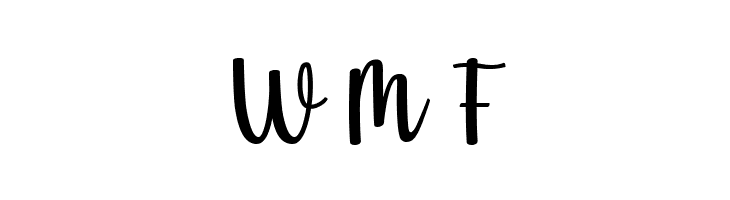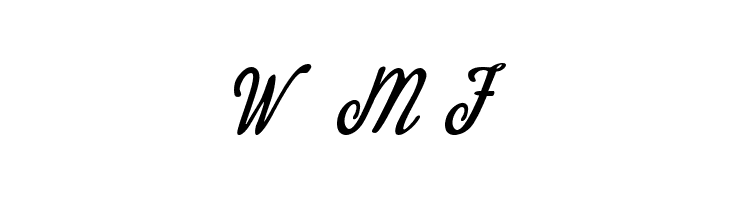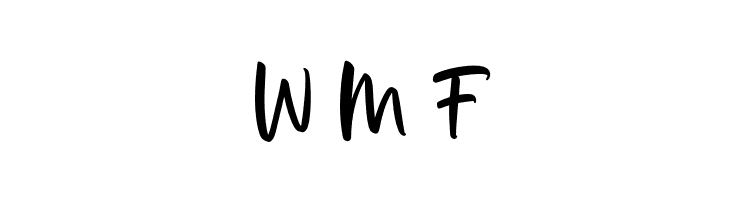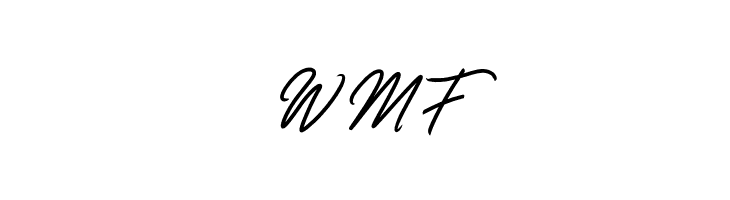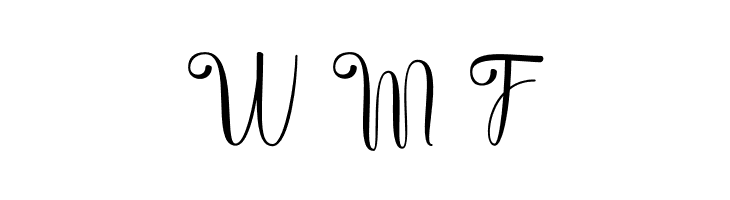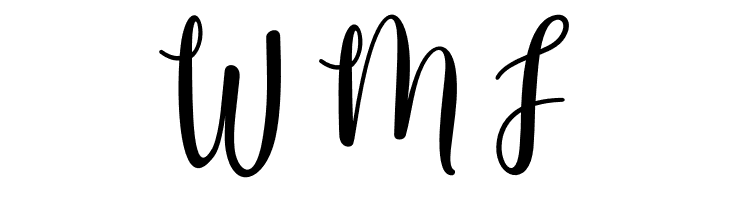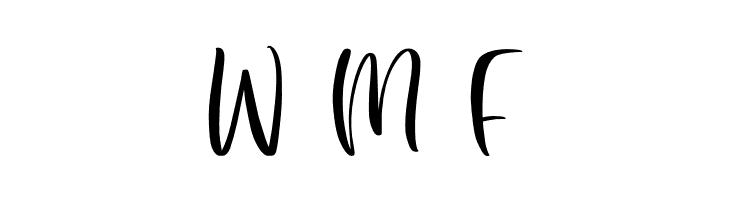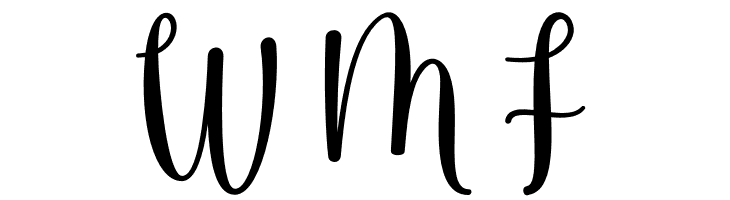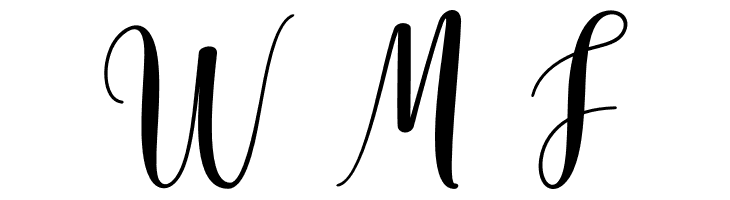
An elegant, flowing script font with a natural handwriting style.
A playful, bold script font with a handwritten style.
A cursive, calligraphic font with elegant loops and swirls.
A playful serif font with a personal touch and regular weight.
A playful, handwritten font with smooth, flowing curves and a casual style.
A flowing, cursive script font with elegant, interconnected characters.
A playful, handwritten font with bold, energetic strokes and a friendly feel.
An elegant, flowing script font with a handwritten appearance.
A sophisticated cursive font with elegant, flowing strokes and intricate details.
A bold, expressive handwritten font with dynamic strokes and an organic feel.
A dynamic and fluid script font with elegant, flowing letterforms.
A dynamic, handwritten-style font with fluid, elongated characters.
A dynamic, cursive script font with a flowing, handwritten style.
A dynamic, expressive handwritten font with fluid strokes and artistic flair.
A fluid, handwritten-style font with a personal touch.
An elegant, flowing script font with interconnected letterforms and decorative style.
A bold, flowing script font with smooth, connected letters and a modern aesthetic.
An elegant script font with intricate swirls and loops, perfect for artistic projects.
An elegant and flowing script font with ornate, graceful curves.
An elegant, flowing script font with artistic flourishes and a playful yet sophisticated style.
An elegant, flowing script font with modern, artistic curves.
An elegant script font with flowing, cursive style and decorative flourishes.
A whimsical and festive script font with playful curves and a hand-drawn feel.
An elegant and flowing script font with ornate uppercase and smooth lowercase letters.
A playful handwritten font with smooth, flowing strokes and a whimsical style.
A lively and elegant script font with flowing, high-contrast letterforms.
A playful, handwritten font with elegant curves and bold, expressive characters.
A lively and expressive handwritten font with fluid strokes and a playful style.
A bold, playful handwritten font with smooth curves and medium contrast.
A lively and expressive script font with bold strokes and decorative loops.
A flowing, cursive script with elegant loops and swashes.